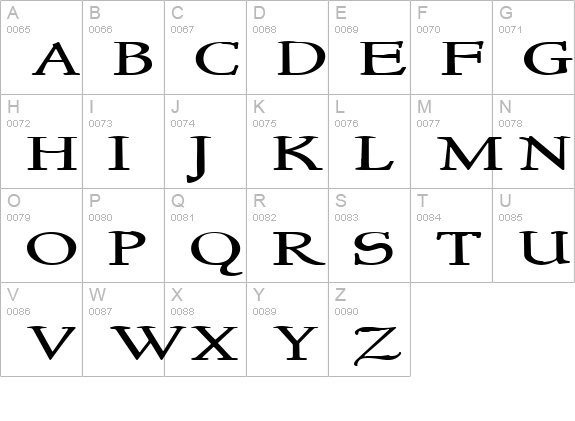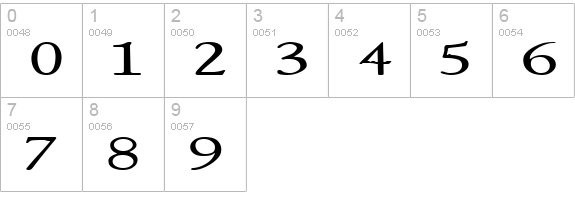
NewStyleWide Font Details
Introducing NewStyleWide font, a modern and stylish typeface that exudes sophistication and elegance. With its wide letterforms and sleek design, NewStyleWide is perfect for adding a touch of contemporary flair to any project. This versatile font is ideal for a wide range of uses, from branding and advertising to editorial design and more. What's even better is that NewStyleWide is available for free download at FontsMarket.com. So whether you're a designer looking to elevate your creations or a business owner seeking a fresh look for your brand, NewStyleWide is the perfect choice. Don't miss out on this opportunity to enhance your projects with this stunning font that is both eye-catching and easy to read. Download NewStyleWide today and see the difference it can make in your designs!